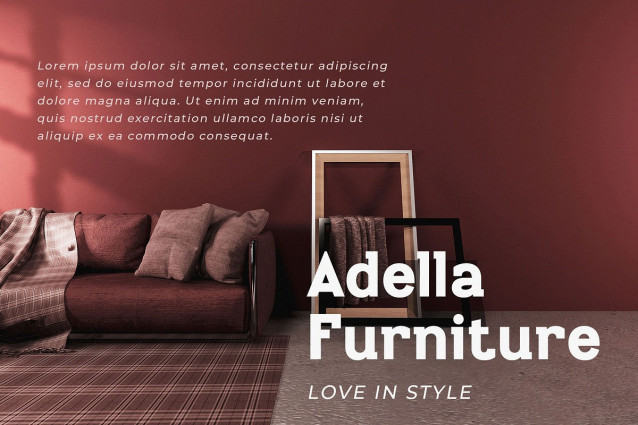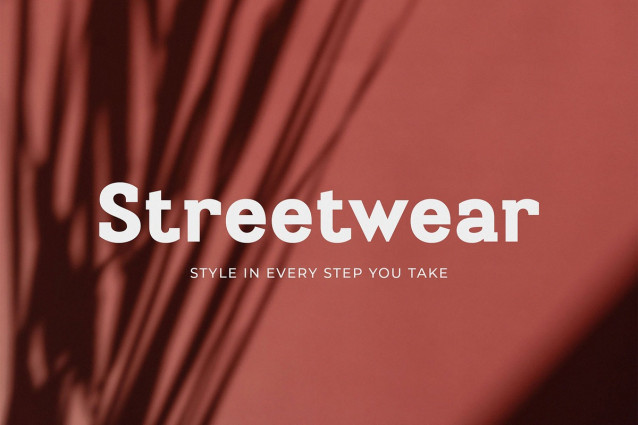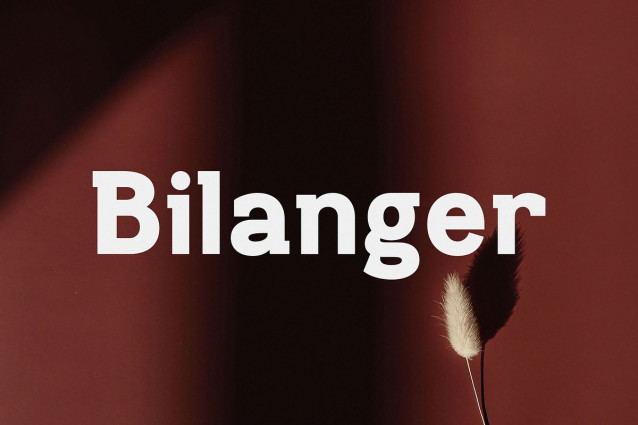
Bilanger Font
Bilanger Font – Modern Sans Serif, is a modern and simple font, best used as a display for headings, logos, branding, magazines, product packaging and invitations.